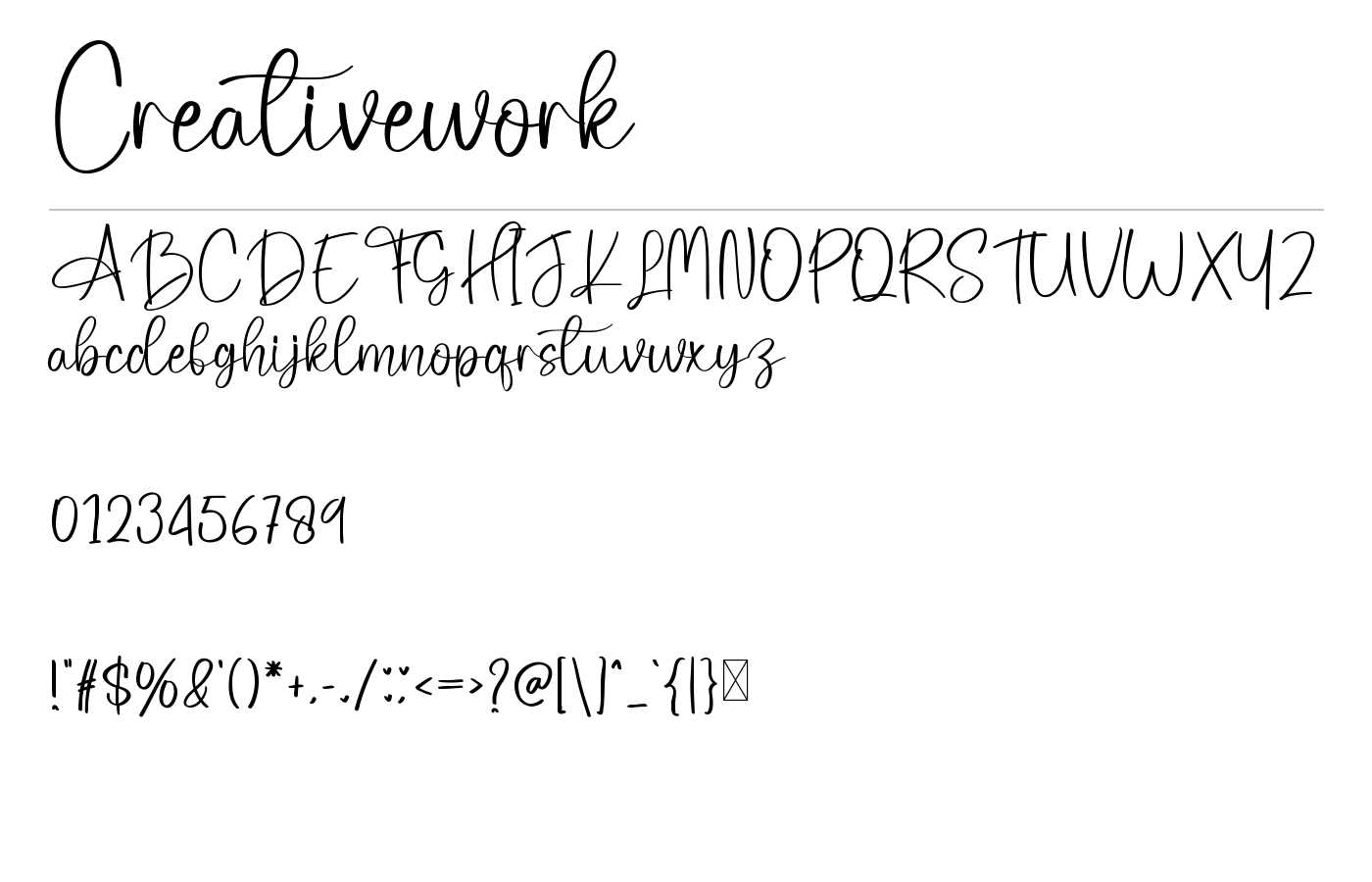
Creativework Font is a delicate, handwritten script with a light, airy feel and smooth, flowing strokes. Its tall x-height and elegant letterforms make it perfect for creative branding, invitations, or any design needing a personal, warm touch. This font shines in projects that want to convey friendliness and artistic charm with a modern, casual sophistication.
Creativework Font
About Creativework Font